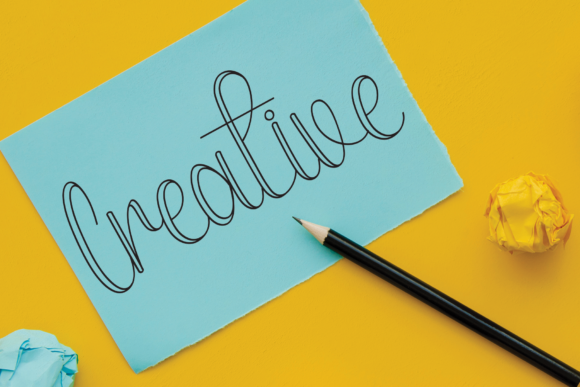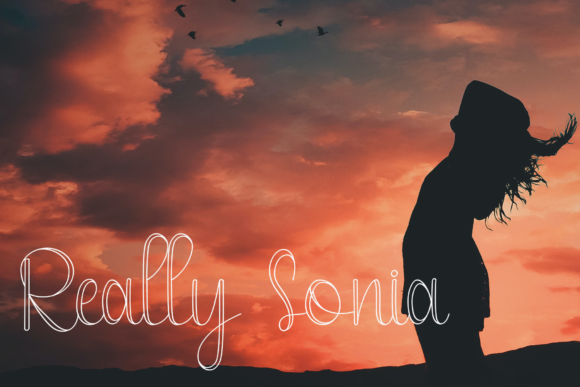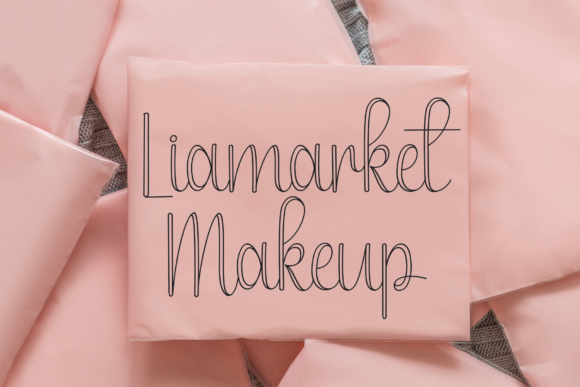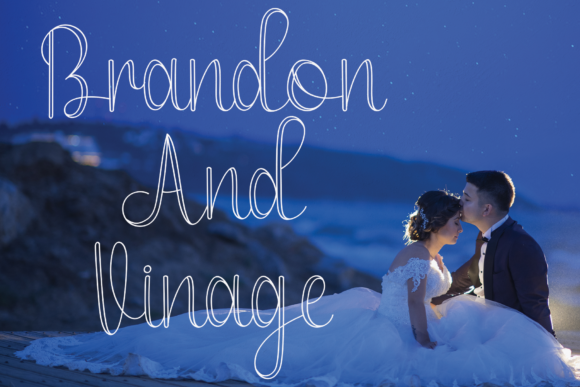
Memory Font
Memory is an elegant and sophisticated handwritten font that adds a touch of refinement and balance to your design projects. With its graceful and harmonious letterforms, this font offers a versatile option for various branding, print, and digital applications.
Ideal for logos and visual identity, Memory brings a sense of timeless beauty and class to your brand’s representation. Its delicate strokes and balanced proportions can help convey a sense of luxury and professionalism, making it a great choice for businesses that want to exude an air of elegance and sophistication.
The font’s well-balanced and elegant design makes it suitable for t-shirt printing and sport designs as well. Whether you’re creating apparel for sports teams, fitness brands, or athletic events, Memory’s refined and versatile characters can contribute to a polished and stylish look that appeals to a wide range of audiences.
Memory’s versatility and aesthetic excellence extend to a variety of contexts. It works seamlessly for both print and digital mediums, making it suitable for various branding materials, packaging, brochures, posters, social media graphics, and more. Its classic yet contemporary look ensures that it can complement a diverse range of design styles and themes.
In addition to branding and sports-related designs, Memory’s elegant and well-balanced appearance makes it a versatile choice for a range of creative projects. It can add a touch of sophistication to invitations, wedding stationery, editorial layouts, fashion-related graphics, and other artistic endeavors. Its timeless appeal helps create designs that resonate with audiences seeking a sense of grace and refinement.
Overall, Memory is an elegant and well-balanced handwritten font that adds a touch of timeless beauty and sophistication to your creations. Its refined design makes it suitable for branding, t-shirt designs, sport graphics, and a variety of other applications, allowing you to create designs that exude an air of elegance and style.